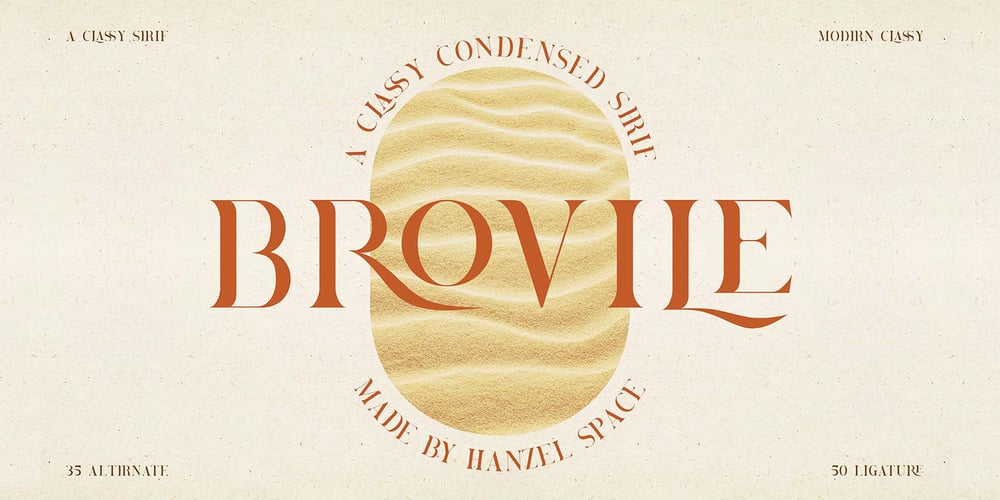
Brovile Font Family was designed by Hanief Farandi and published by Hanzel Space. Brovile contains 1 styles and family package options. Brovile, is a wedge serif font that is sure to stand out! A little bit retro and a bit modern, Brovile. is great for logos, editorial or web design. The unique sharp serifs mixed with thin strokes give off a bold mid century architectural vibe.This modern serif typeface features serifs. Perfect for gorgeous logos & titles, The Brovile. will pair beautifully with many fonts and work well with whatever project you’re working on. Web font Uppercase Lowercase Numbers & Punctuation That’s it! If you have any questions at all , feel free to pop me a private message , I’m always more than happy to help you along :)Happy creating! Hanzel Studio